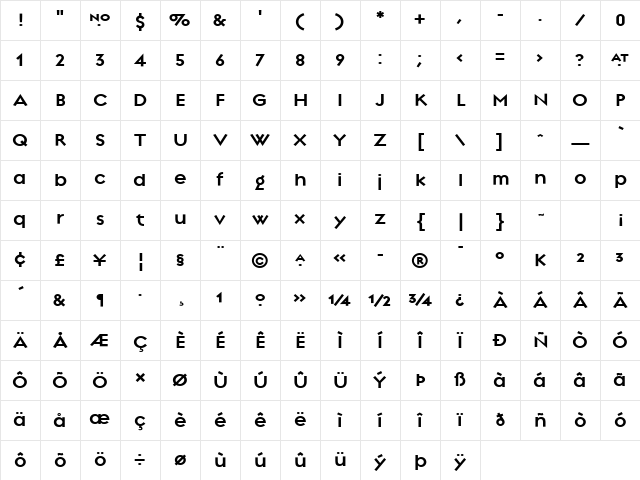
Regulator is a composed and adaptable typeface that performs quietly and consistently across a wide range of design contexts. Its bold stroke weight gives it real presence on the page.